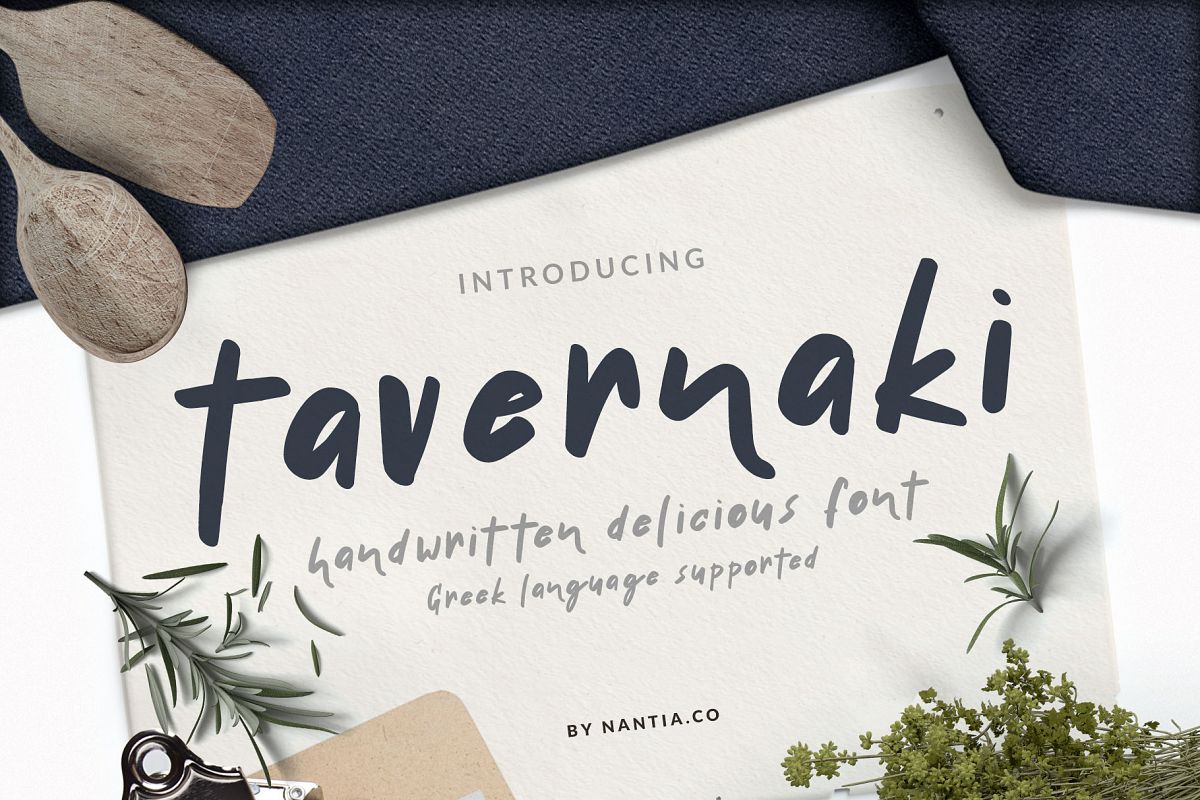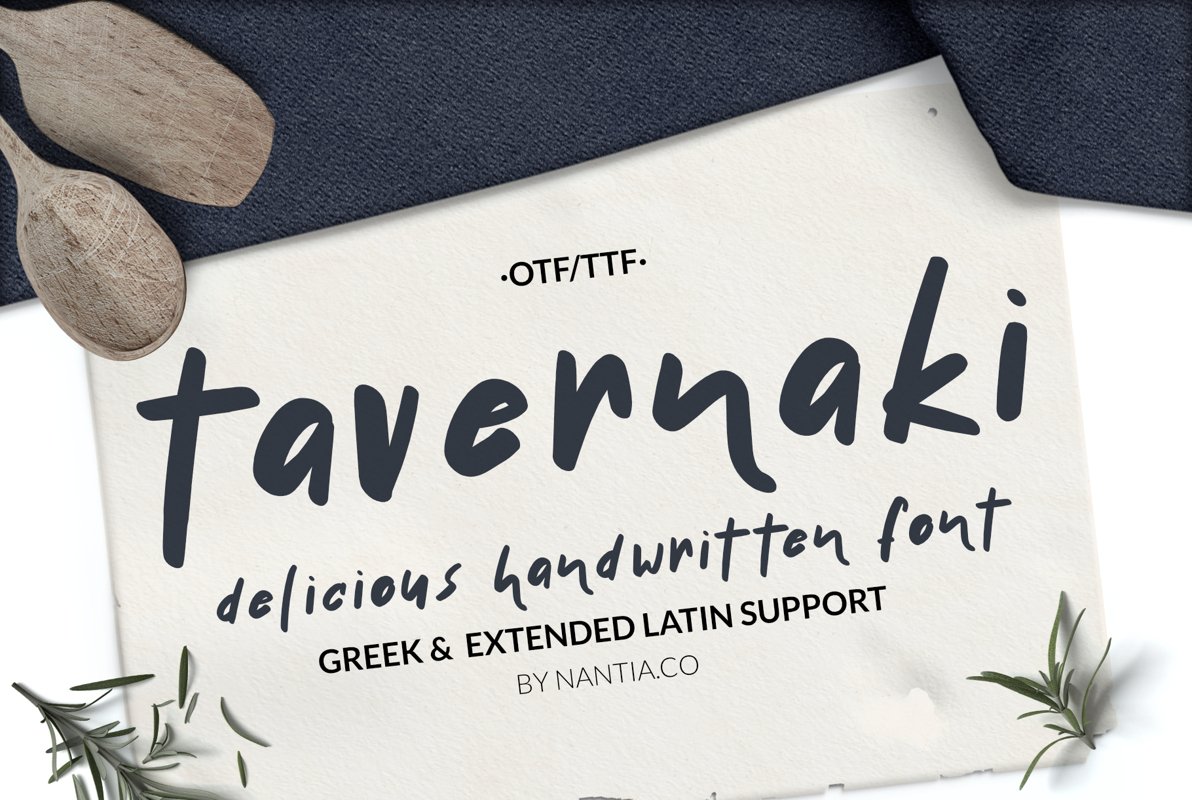
Handwritten Delicious Font Tavernaki
Handwritten Delicious Font, Tavernaki
The Handwritten Delicious Font Tavernaki is a 100% handwritten delicious font with which you can achieve a handwritten-type lettering feeling. This typeface is a multilingual lettering font with Greek (of course), Latin characters and diacritics.
The style of the font is perfect for your modern graphic design needs.
This font has a really nice flow so you use it in a large text if you
want to give them a touch of personality. In addition this typeface can
be used on social media content, for branding or packaging.
• Extended Latin
• Greek
• punctuation marks
• numbers